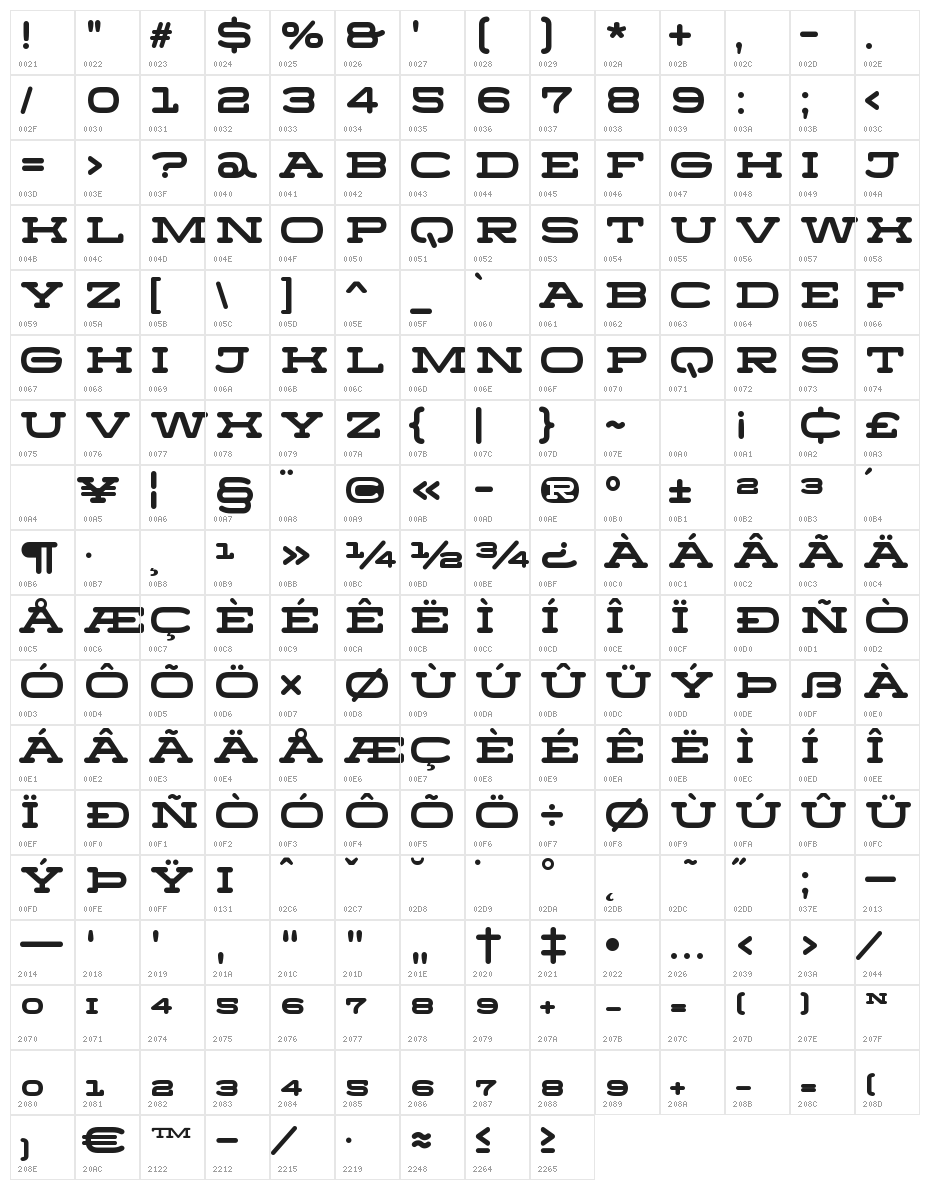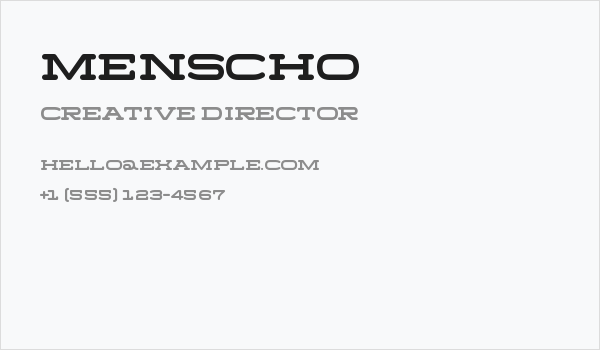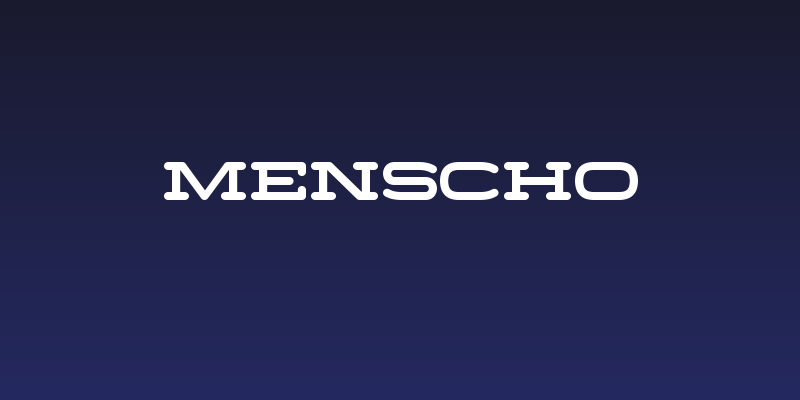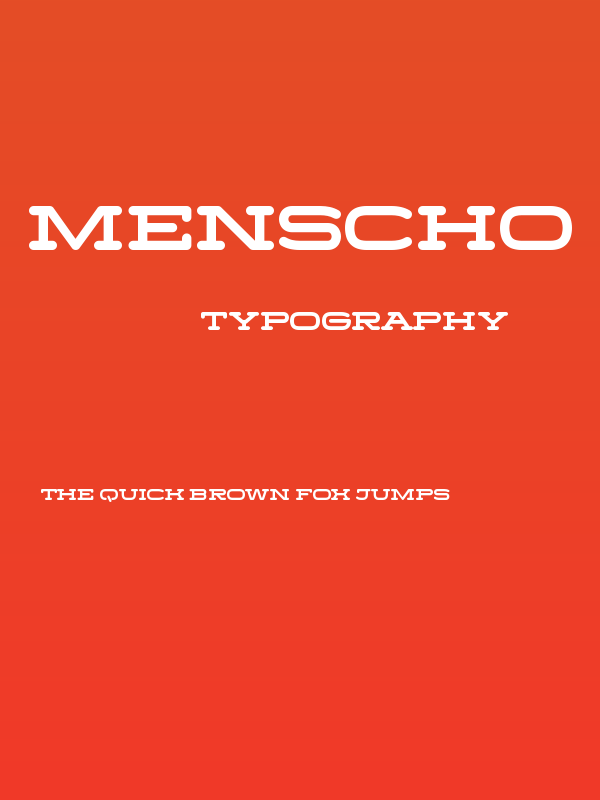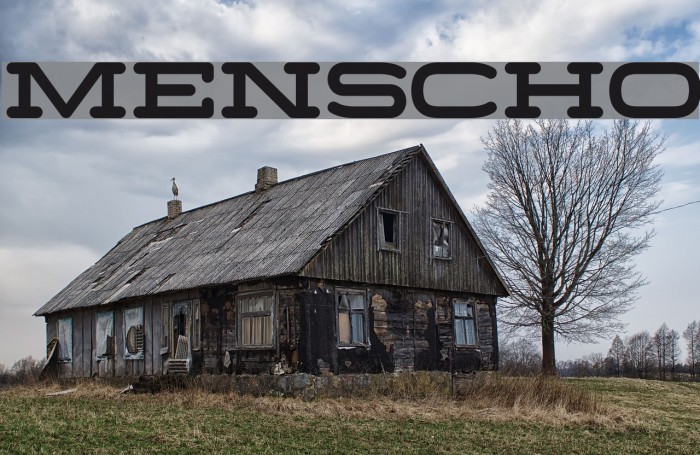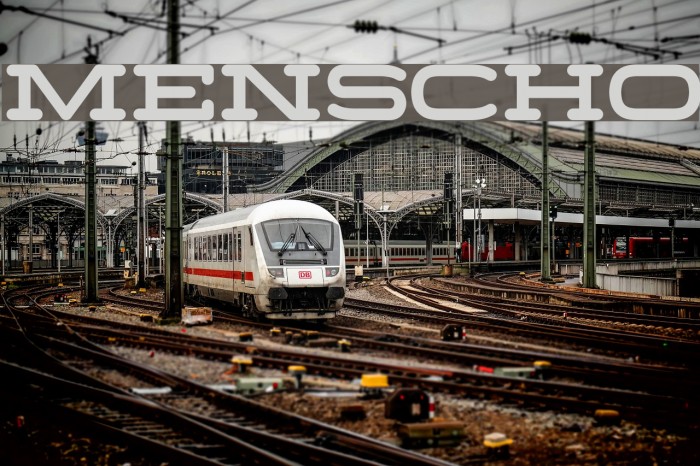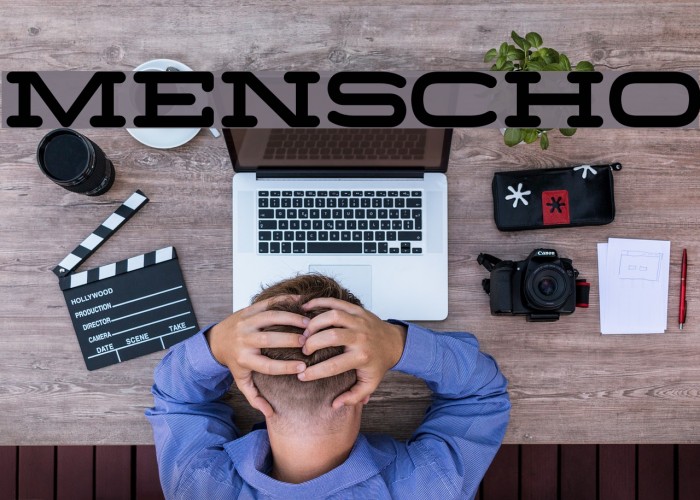
Menscho Font
Menscho Description
This font features a bold, geometric style with a modern twist, characterized by its thick, uniform strokes and rounded edges. The uppercase letters are distinct with a slight industrial feel, while the lowercase letters maintain a consistent height and width, enhancing readability. The numerals are equally bold, matching the overall aesthetic of the alphabet. Special characters are designed with the same attention to detail, ensuring they blend seamlessly with the rest of the font. This typeface is versatile, suitable for both digital and print media, and can be used to make a strong visual impact.
| Proposed Projects | Ideal for branding, headlines, posters, and signage where a strong, modern look is desired. |